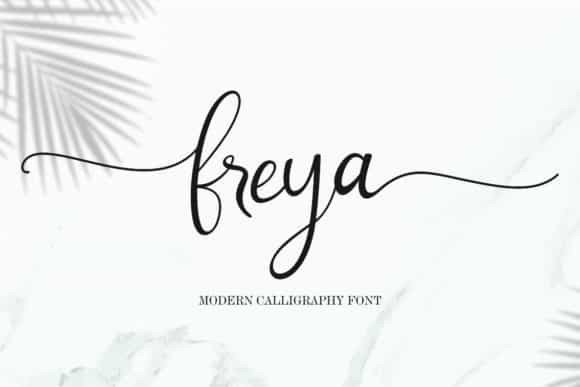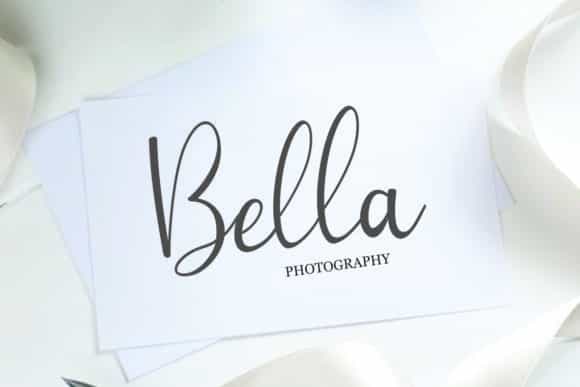
Freya Font is a calligraphy style font, a beautiful and adorable font that can be used in any creative work. It is so beautiful on invitation like greeting cards, branding materials, business cards, quotes, posters, and much more.